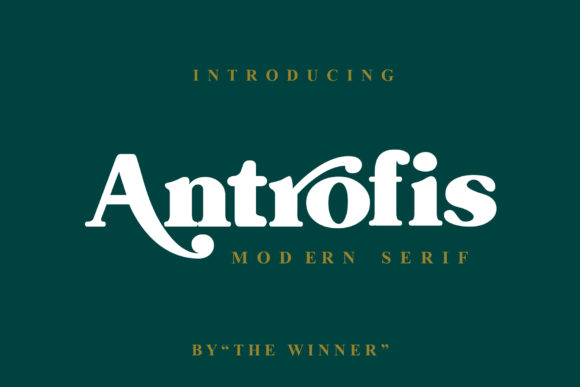
Introducing Antrofis Font: The Ultimate Display Font for Creative Expression
Are you tired of using the same old fonts for your creative projects? Do you want to take your designs to the next level with a unique and eye-catching font? Look no further than Antrofis Font, a chunky lettered and distinct display font that’s sure to become a true favorite among designers and creatives.
What is Antrofis Font?
Antrofis Font is a masterfully designed display font that’s perfect for making a statement. Its chunky letters and distinct design make it stand out from the crowd, giving your creative projects a professional and polished look. Whether you’re working on a logo, poster, or social media graphic, Antrofis Font is the perfect choice.
Key Features of Antrofis Font
- Chunky Letters: Antrofis Font features chunky letters that are perfect for creating bold and eye-catching designs.
- Distinct Design: The font’s distinct design makes it stand out from other fonts, giving your creative projects a unique and professional look.
- High-Quality: Antrofis Font is a high-quality font that’s designed to deliver crisp and clear results, even at large sizes.
Why Choose Antrofis Font?
There are many reasons why Antrofis Font is the perfect choice for your creative projects. Here are just a few:
- Uniqueness: Antrofis Font is a unique font that’s sure to make your designs stand out from the crowd.
- Versatility: The font is versatile and can be used for a wide range of creative projects, from logos and posters to social media graphics and more.
- Professional Look: Antrofis Font gives your designs a professional and polished look that’s sure to impress.
- Easy to Read: Despite its chunky design, Antrofis Font is easy to read, making it perfect for use in a variety of contexts.
Tips for Using Antrofis Font
Here are a few tips for using Antrofis Font:
- Use it for Headings: Antrofis Font is perfect for use in headings and titles, where its chunky design can really make an impact.
- Experiment with Colors: Antrofis Font looks great in a variety of colors, so don’t be afraid to experiment and find the perfect color for your design.
- Pair it with Other Fonts: Antrofis Font pairs well with other fonts, so try pairing it with a sans-serif font for a contrasting look.
In conclusion, Antrofis Font is a powerful and versatile display font that’s perfect for creative projects. Its chunky letters and distinct design make it stand out from the crowd, giving your designs a professional and polished look. With its ease of use and high-quality design, Antrofis Font is sure to become a true favorite among designers and creatives.
- What is Antrofis Font? Antrofis Font is a chunky lettered and distinct display font that’s perfect for making a statement.